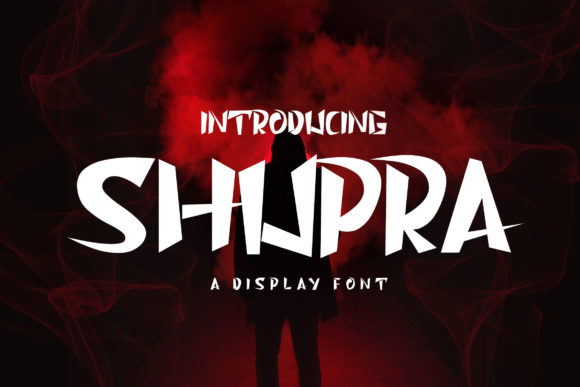
Shupra: A Designer’s Take on Its Real-World Performance
First Impressions: Bold, Stylish, and Immediately Memorable
Shupra grabs attention the moment you lay eyes on it. It’s a display font with a strong visual presence—clean yet expressive, modern yet timeless. The letterforms feel deliberate, with subtle tapering and balanced proportions that suggest both sophistication and approachability. It doesn’t whisper; it speaks clearly and confidently. Right away, you can tell this is a typeface that belongs in spaces where visual impact matters—logos, packaging, posters, and brand headers.
What’s the Mood?
Shupra radiates a contemporary elegance. It leans into modern typography trends without sacrificing readability or character. It’s not overly ornate, but it carries enough flair to feel unique. The tone is professional yet creative, making it a versatile choice for brands that want to feel polished without appearing stiff. It pairs especially well with minimalist layouts, where its structure can shine without competition.
Real-World Use: How Shupra Holds Up
Let’s talk about actual applications. I’ve tested Shupra across a range of design contexts, and here’s how it stacks up:
Logo Design & Brand Identity
Shupra works exceptionally well as a logo font, especially for brands that want to communicate clarity and modernity. It reads well in both uppercase and lowercase, though uppercase gives it a stronger, more commanding presence. It’s a solid option for brand marks that need to stand out across digital and print touchpoints.
Packaging Design & Product Labels
On packaging, Shupra brings a clean, upscale feel. It’s ideal for premium products where legibility and aesthetic balance are key. Whether it’s a cosmetic label or artisanal food packaging, it adds a layer of refinement without being too flashy.
Posters, Flyers, Invitations
For event-based designs, Shupra delivers. It’s effective in short bursts of text—titles, taglines, featured names—where visual hierarchy is crucial. It pairs well with more neutral fonts, allowing for a clear separation between headline and body text.
Merchandise & Printables
From t-shirts to greeting cards, Shupra maintains its integrity across different print methods. It scales well, though it’s best used at medium to large sizes for optimal impact. In Canva templates or Cricut projects, it adds a professional edge that elevates the overall design.
Web Headers & Social Media Graphics
Shupra shines in digital spaces, especially as a header font or featured text in carousel posts. It reads well on screens and maintains its character even at moderate sizes. Just be mindful of background contrast and spacing when using it in web design or social media visuals.
Editorial & Digital Ads
While not ideal for long-form editorial content, Shupra excels in supporting roles—pull quotes, subheadings, or featured captions. In digital ads, it helps establish a strong visual hook, drawing the eye without overwhelming the message.
Large Headlines (Use Sparingly)
Yes, it’s a display font, but in oversized applications, some letterforms can lose clarity, especially at extreme angles or in low-resolution formats. Always test in context.
Supporting Text or Body Copy
Avoid using Shupra for extended reading. Its design is optimized for impact, not endurance. Stick to using it in short bursts for best results.
Small-Size Readability
At very small sizes, the font’s character can become muddied. Always preview it in black and white and at actual print or screen size before finalizing.
Font Pairing: How Shupra Plays with Others
One of the most important tests for any font is how well it pairs with others. Shupra works surprisingly well with a variety of styles:
- Serif Font Pairing:: Creates a classic-meets-modern contrast. Think Georgia or Playfair paired with Shupra for editorial or luxury branding.
- Sans Serif Font Pairing:: Offers a clean, contemporary look. Try it with Montserrat or Lato for tech or lifestyle brands.
- Script Font Pairing:: Adds personality and warmth. Use a script like Pacifico sparingly beside Shupra for a playful yet professional look.
- Handwritten Font Pairing:: Balances structure with organic flow. Great for creative studios or boutique brands.
- Display Font Pairing:: Use with caution—only pair with other display fonts if they’re visually distinct and serve different roles.
Before locking in Shupra for client or business use, here are a few practical steps to take:
- Test in Black and White:: Color can mask imperfections. See how it looks in grayscale for print or accessibility purposes.
- Check Small Sizes:: Especially for packaging or digital UI elements where text might shrink.
- Try Real Mockups:: Use it in actual project mockups—website headers, packaging labels, social media templates—to see how it behaves in context.
- Compare Uppercase vs. Lowercase:: Shupra has a strong uppercase presence, but lowercase can offer a more casual, approachable tone.
If you're building a brand identity, designing packaging, or creating digital assets where visual impact matters, Shupra deserves a spot in your test lineup. Just remember: like any creative font, it works best when used with intention. Pair it wisely, test thoroughly, and let it serve the design—not the other way around.